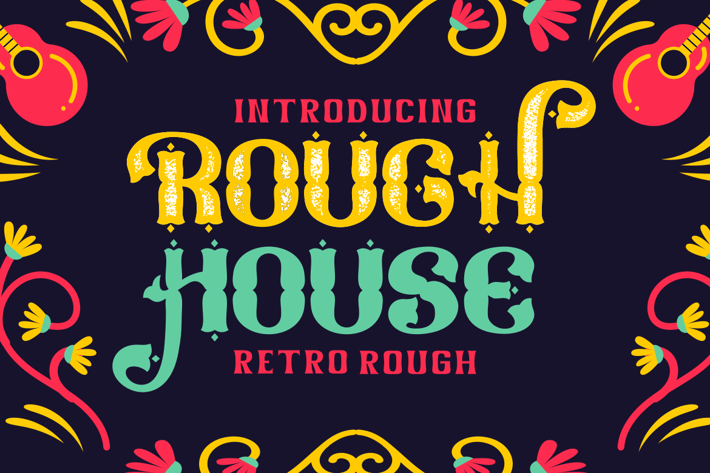
Rough House - Retro Rough Display Font
Introducing “Rough House - Retro Rough Display Font,” a unique blend of classic and contemporary, designed to bring your creative projects to life. This font is meticulously crafted, embodying the spirit of retro, rough, and classic aesthetics while being incredibly versatile. With two distinct variations included in both OTF and TTF formats, Rough House ensures flexibility in design across various platforms.
Rough House is not just a font; it’s an experience reminiscent of timeless artistry. Its decorative flair makes it the perfect choice for logos, branding initiatives, children’s themes, crafting projects, invitations cards, packaging designs, posters titles business cards greetings cards stickers children’s books magazines and any design correlated with its thematic essence.
Every stroke and curve of Rough House is infused with a nostalgic touch yet exudes a modern appeal. It stands alone as a bold statement or seamlessly integrates with other design elements enhancing visual harmony. Dive into the world where the past meets the present with Rough House - where every word is not just seen but felt.